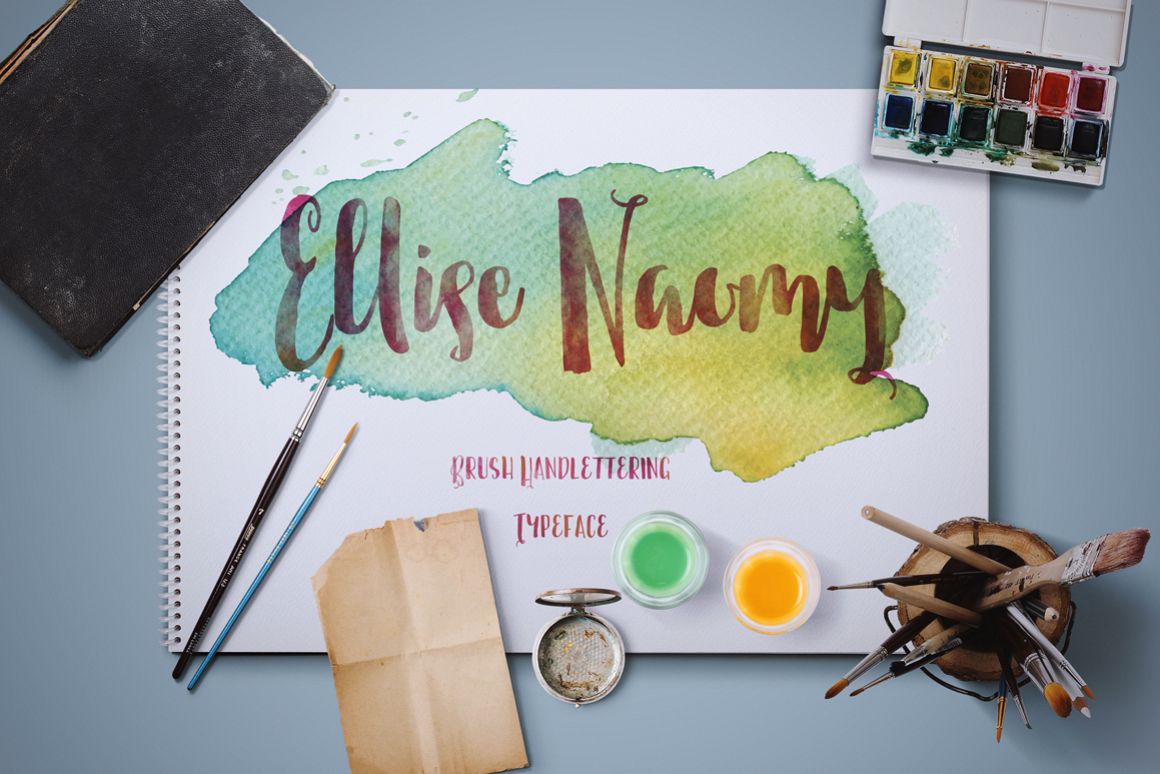
Ellise Naomy Script
Ellise Naomy
This beautiful brush handlettering called Ellise Naomy, its created with lovely and brushy characters. This beauty font was PUA encoded. Ellise Naomy is a brush handlettering typeface that comes with stylistic and unique handlettering.Ellise Naomy features 339 glyphs and 118 alternate characters contain with opentype features.
This font has many stylistic alternate characters that allowing you to make each word look completely brushy. Standard Ligatures are also included to bring up your creativity.This beautiful fonts works properly and perfectly for logos, wedding invitation card, stationary, packaging, clothing, flyer, apparel, magazines, brochures, headings, signature, labels, news, posters, badges, etc.